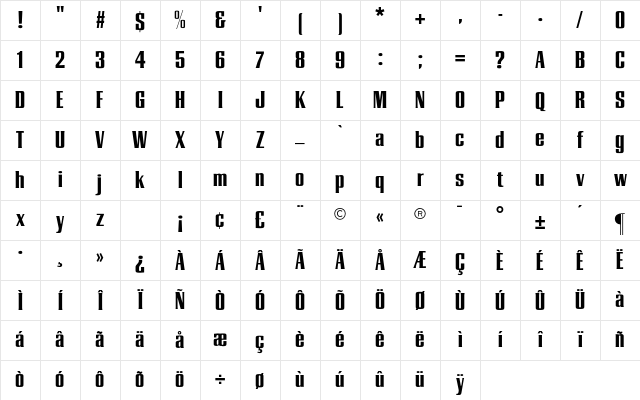
Europa CG Bold is a composed and adaptable typeface that performs quietly and consistently across a wide range of design contexts. Its bold stroke weight gives it real presence on the page.